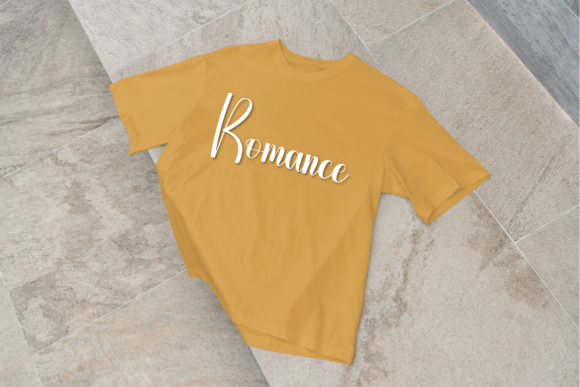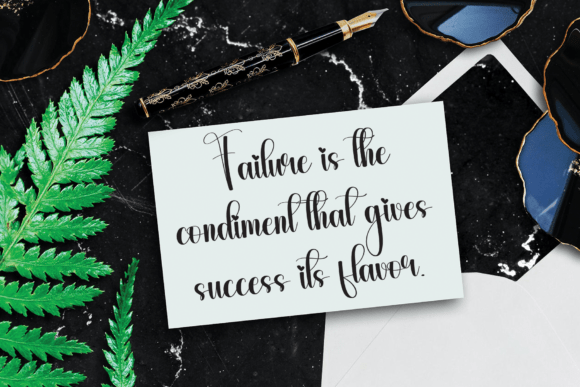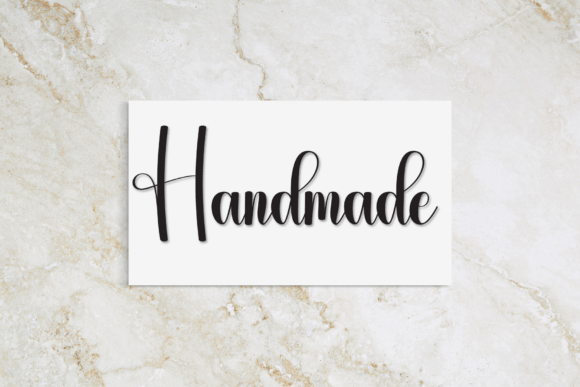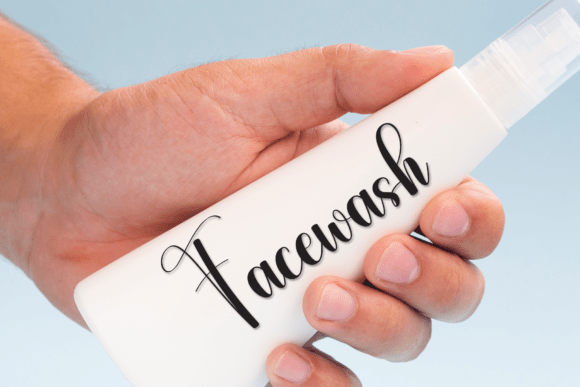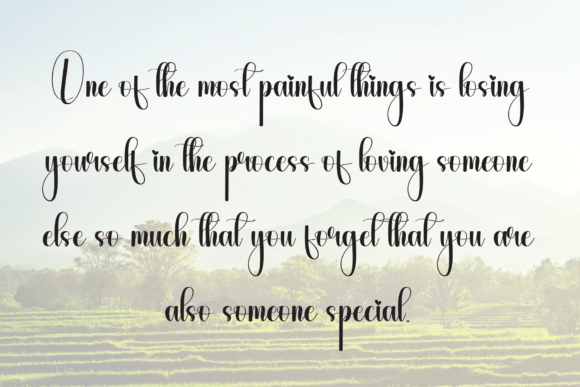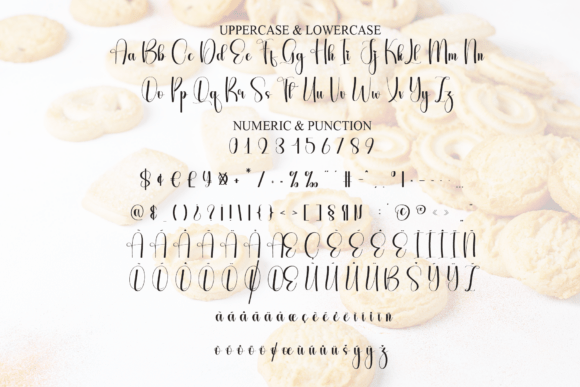
Biscuit Font: Introducing Sweet Scribbles – A Delightful Handwritten Display Font
Are you on the hunt for a font that exudes charm, friendliness, and a dash of whimsy? Look no further than Sweet Scribbles, a captivating handwritten display font that’s perfect for adding a personal touch to your designs. In this article, we’ll dive into the world of Sweet Scribbles, exploring its unique features, uses, and the magic it can bring to your creative projects.
The Charm of Sweet Scribbles
Sweet Scribbles is more than just a font – it’s an experience. With its enchanting handwritten style, this delightful font resonates with warmth, making it an ideal choice for crafting wedding invitations, heartfelt cards, and other designs that require a personal touch. Its whimsical character is sure to captivate your audience, leaving a lasting impression that’s both fun and memorable.
Wedding invitations and cards are a great way to showcase the beauty of Sweet Scribbles. This font’s elegant yet playful style makes it perfect for:
- Wedding invitations: Add a touch of romance and whimsy to your wedding invitations, setting the tone for a joyful celebration.
- Heartfelt cards: Create personalized cards for special occasions, such as birthdays, anniversaries, and get-well wishes.
- Save-the-date cards: Make your save-the-date cards stand out with Sweet Scribbles’ delightful and eye-catching style.
Beyond Wedding Invitations: Exploring Other Design Niches
Sweet Scribbles is versatile and can be used in various design niches beyond wedding invitations and cards. Some ideas include:
- Branding and packaging: Add a playful touch to your brand’s packaging and marketing materials.
- Social media graphics: Create engaging social media graphics, such as quote graphics, Instagram stories, and Facebook posts.
- Blog and website design: Use Sweet Scribbles to create eye-catching headings, titles, and other design elements for your blog or website.
The Beauty of Simplicity: What Makes Sweet Scribbles Special
Sweet Scribbles’ beauty lies in its simplicity. Each stroke is a masterful blend of sweetness, fun, and artistic brilliance, making it a true gem in the world of typography. Here are a few reasons why Sweet Scribbles stands out:
- Unique character: Sweet Scribbles has a distinct, handwritten style that’s both charming and approachable.
- Easy to read: Despite its whimsical nature, Sweet Scribbles remains highly legible, making it perfect for body text and headings.
- Highly versatile: This font can be used in a wide range of design projects, from digital to print.
Tips for Using Sweet Scribbles in Your Designs
To get the most out of Sweet Scribbles, here are some tips to keep in mind:
- Mix and match: Combine Sweet Scribbles with other fonts to create visually appealing contrast.
- Experiment with colors: Play with different colors to find the perfect match for your design.
- Don’t be afraid to get creative: Sweet Scribbles is a versatile font that can be used in a variety of design contexts.
Sweet Scribbles is a delightful handwritten display font that’s sure to bring charm, friendliness, and whimsy to your designs. With its unique character, versatility, and beauty of simplicity, this font is perfect for designers and crafters looking to add a personal touch to their creative projects. Whether you’re working on wedding invitations, cards, or other design niches, Sweet Scribbles is sure to delight your audience and leave a lasting impression.